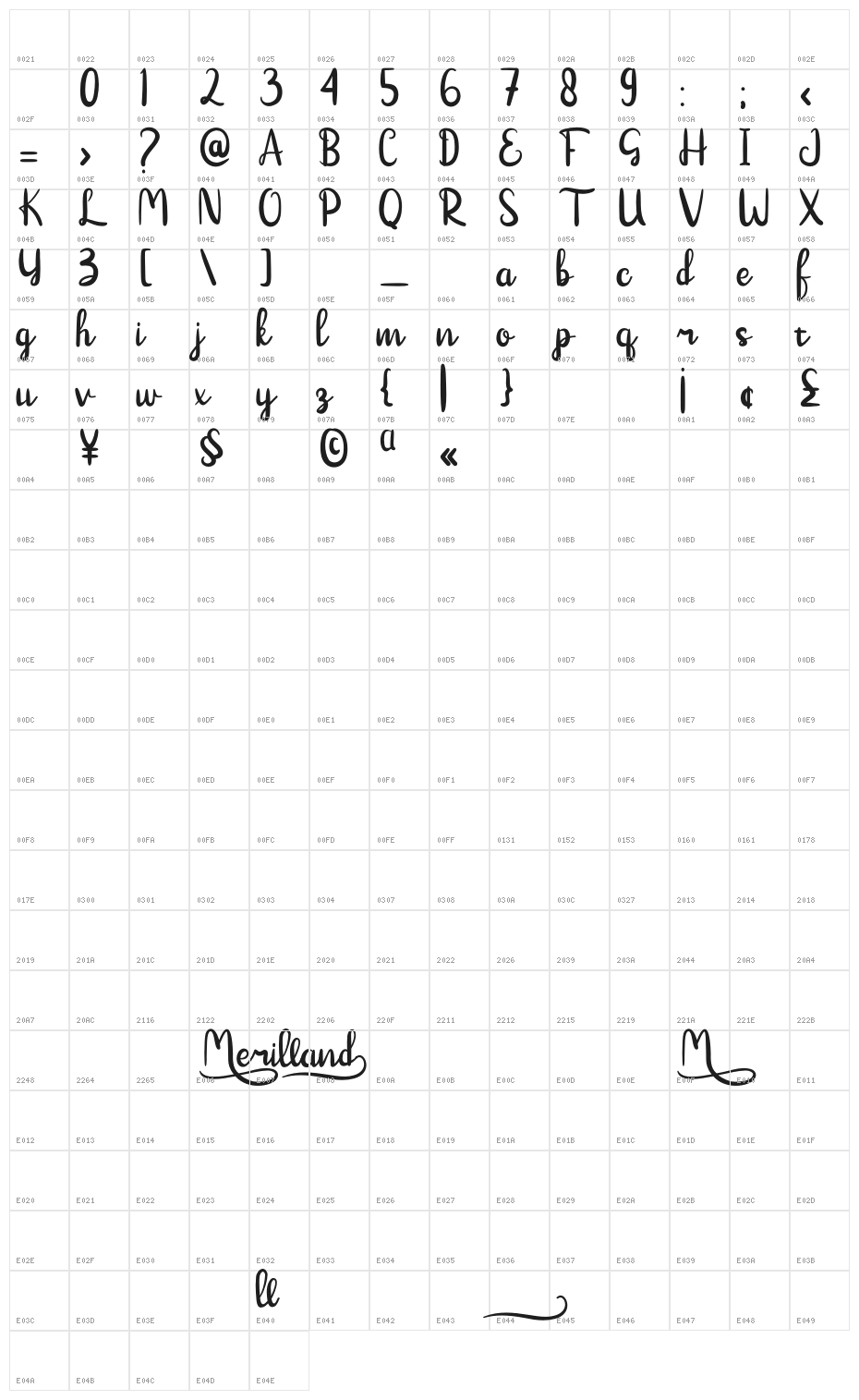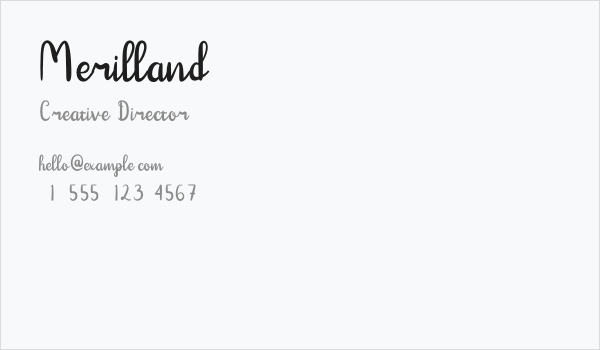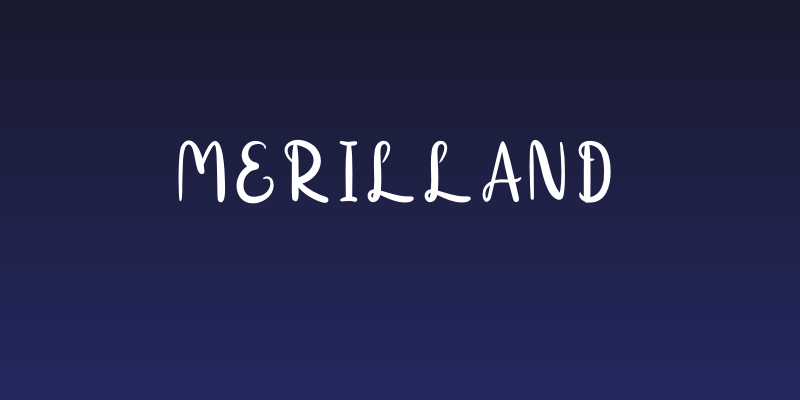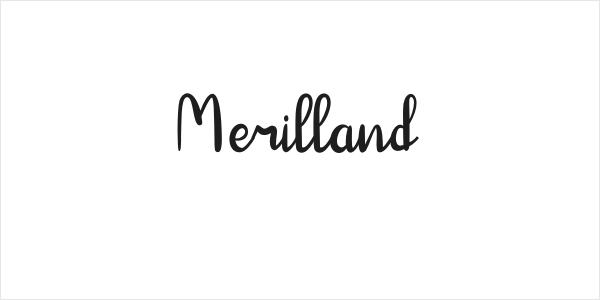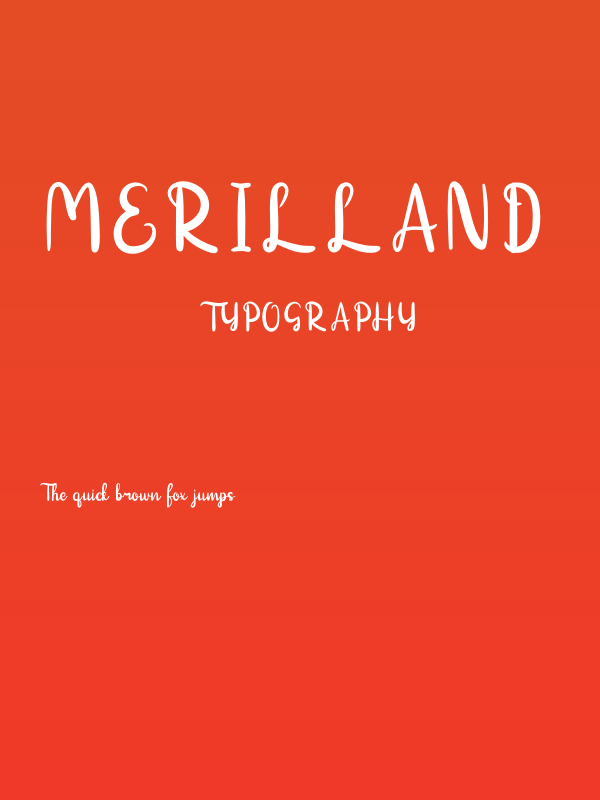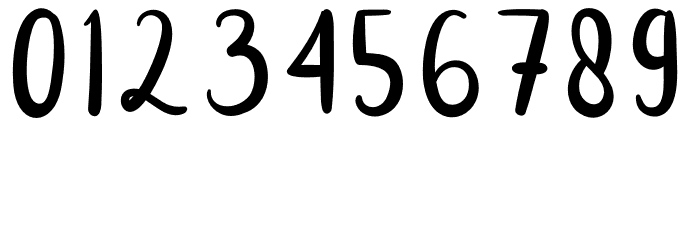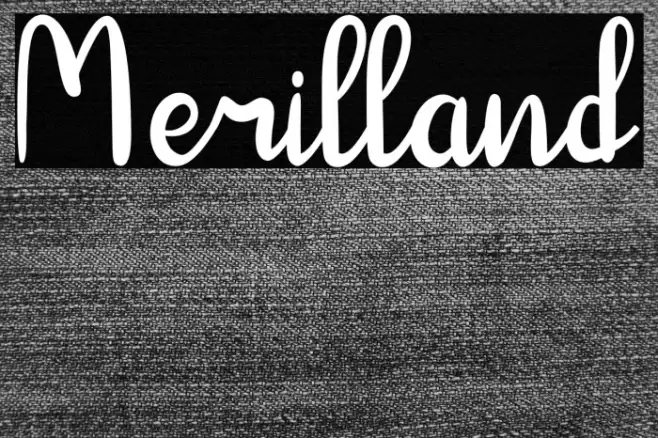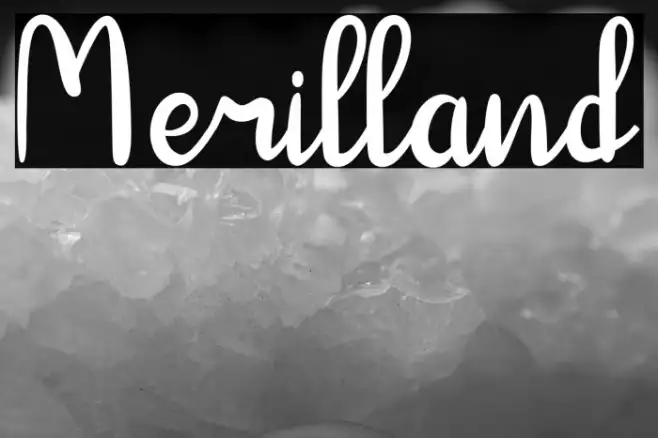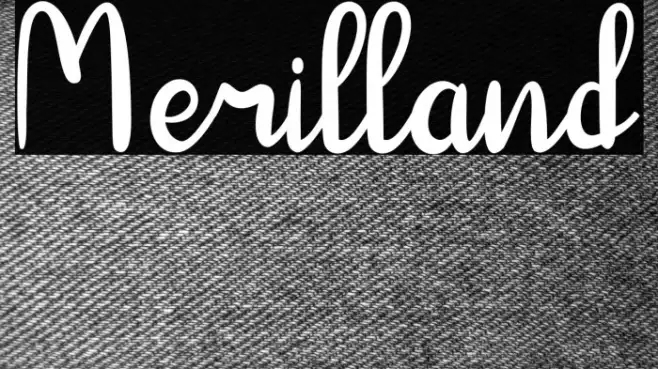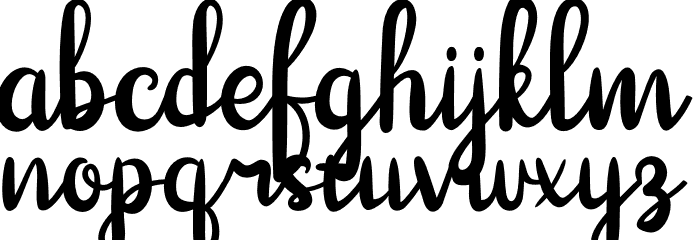
Merilland Font
Merilland Description
This font features a playful and whimsical style, characterized by its rounded and flowing letterforms. The uppercase letters have a unique charm with slight variations in stroke width, giving them a hand-drawn appearance. The lowercase letters are more fluid, with some characters extending below the baseline, adding to the font's dynamic nature. The numerals are consistent with the overall style, maintaining the playful and informal vibe. This font is versatile, suitable for projects that require a friendly and approachable aesthetic.
| Proposed Projects | Ideal for children's books, greeting cards, playful branding, and casual invitations. |